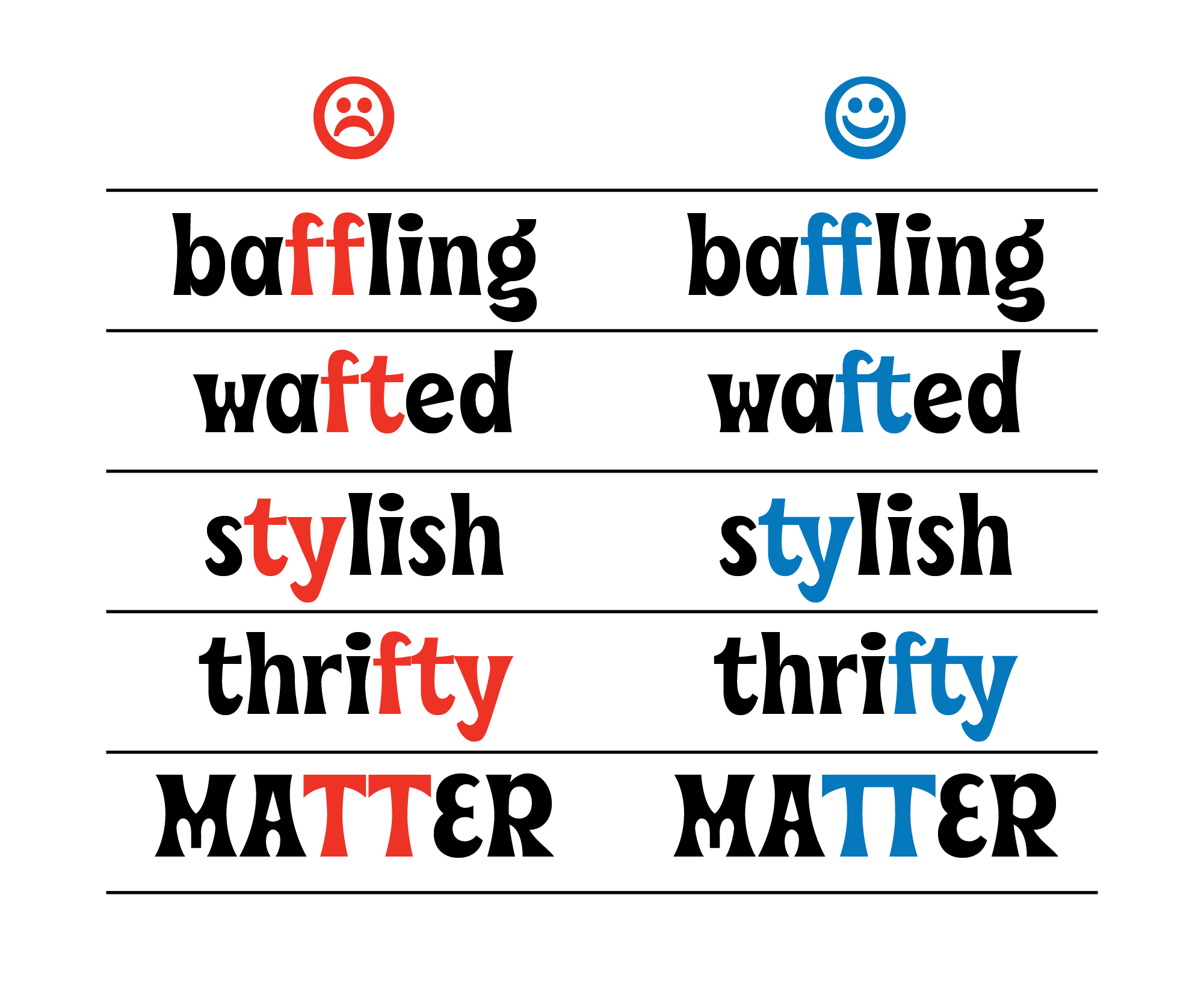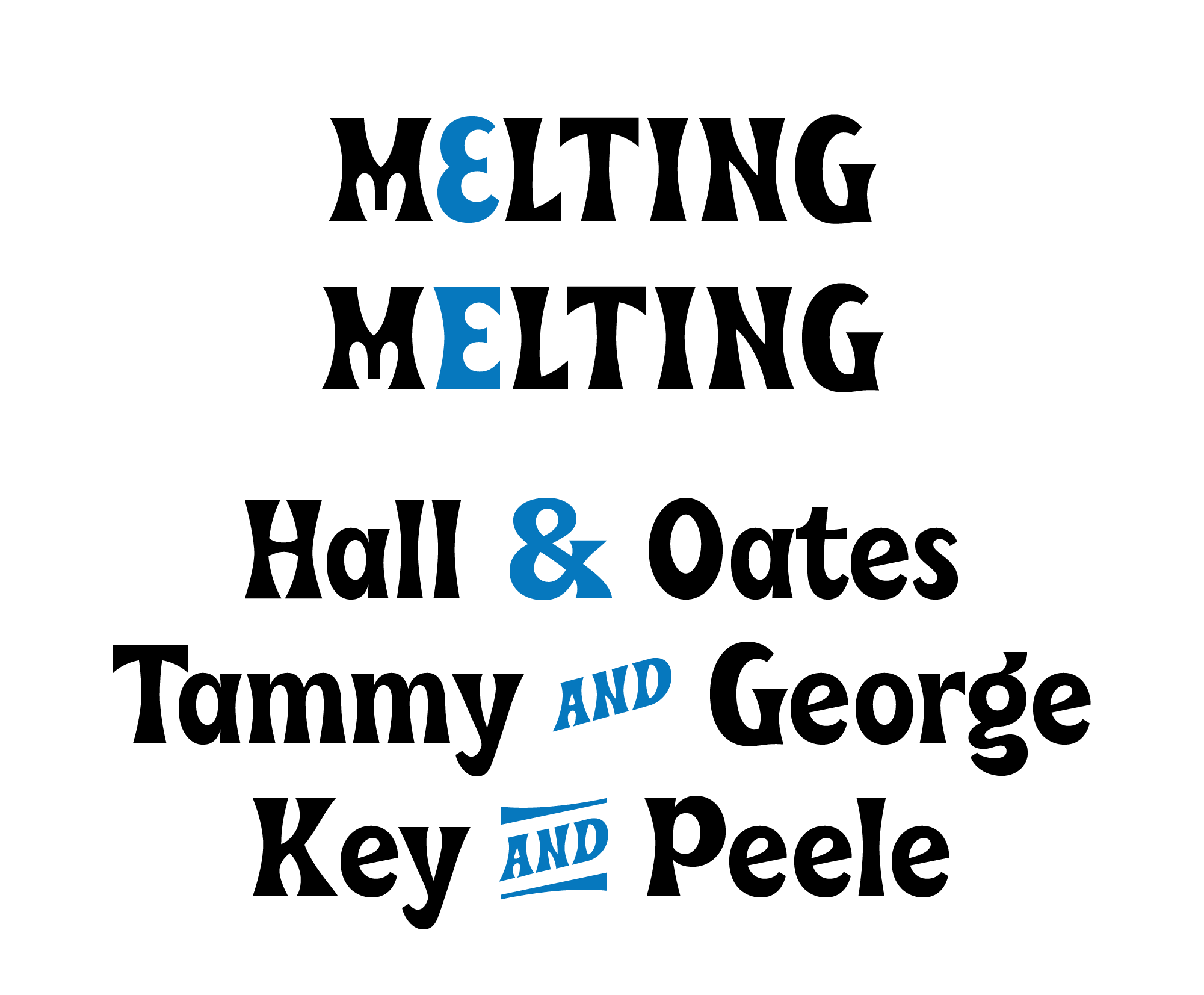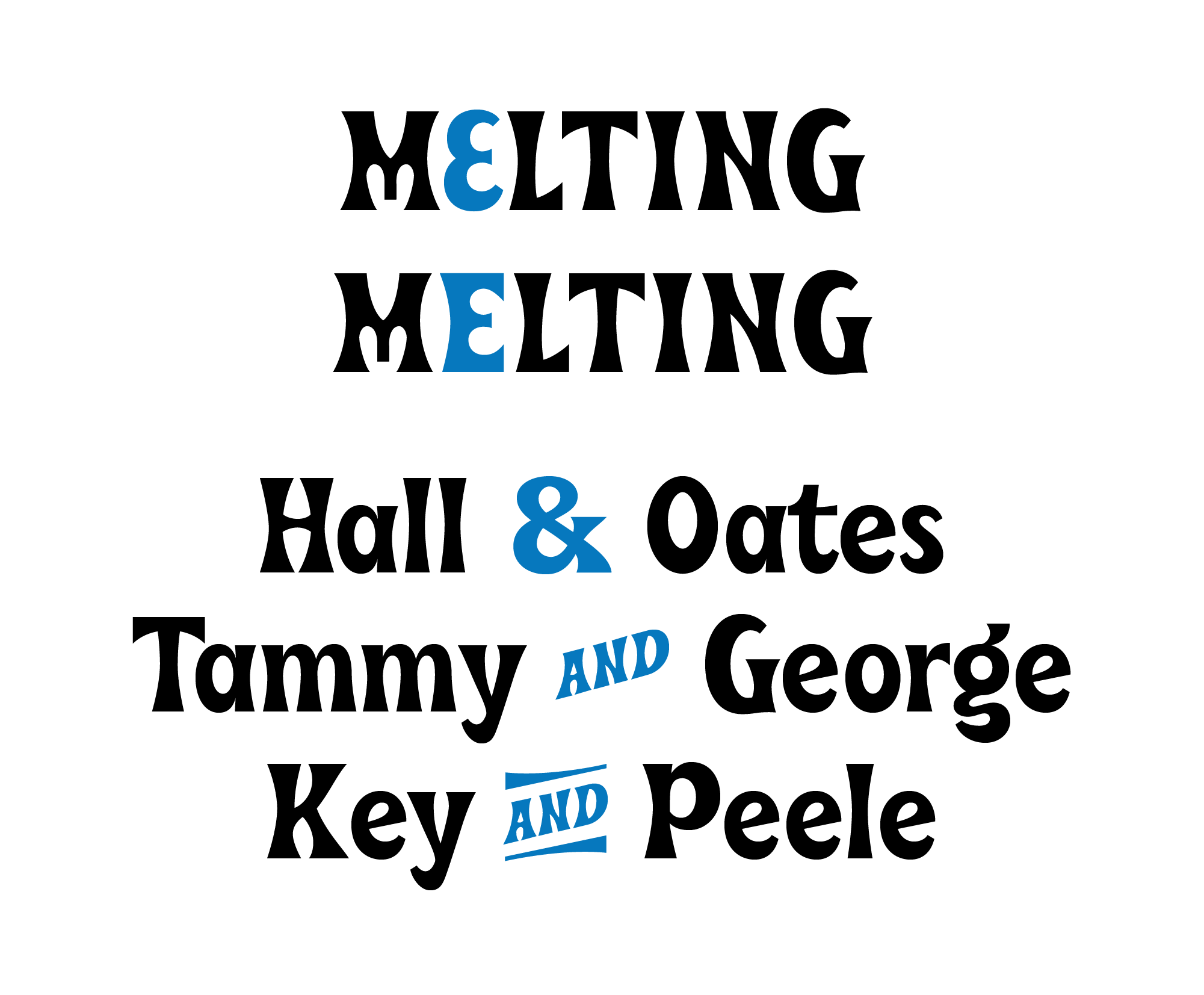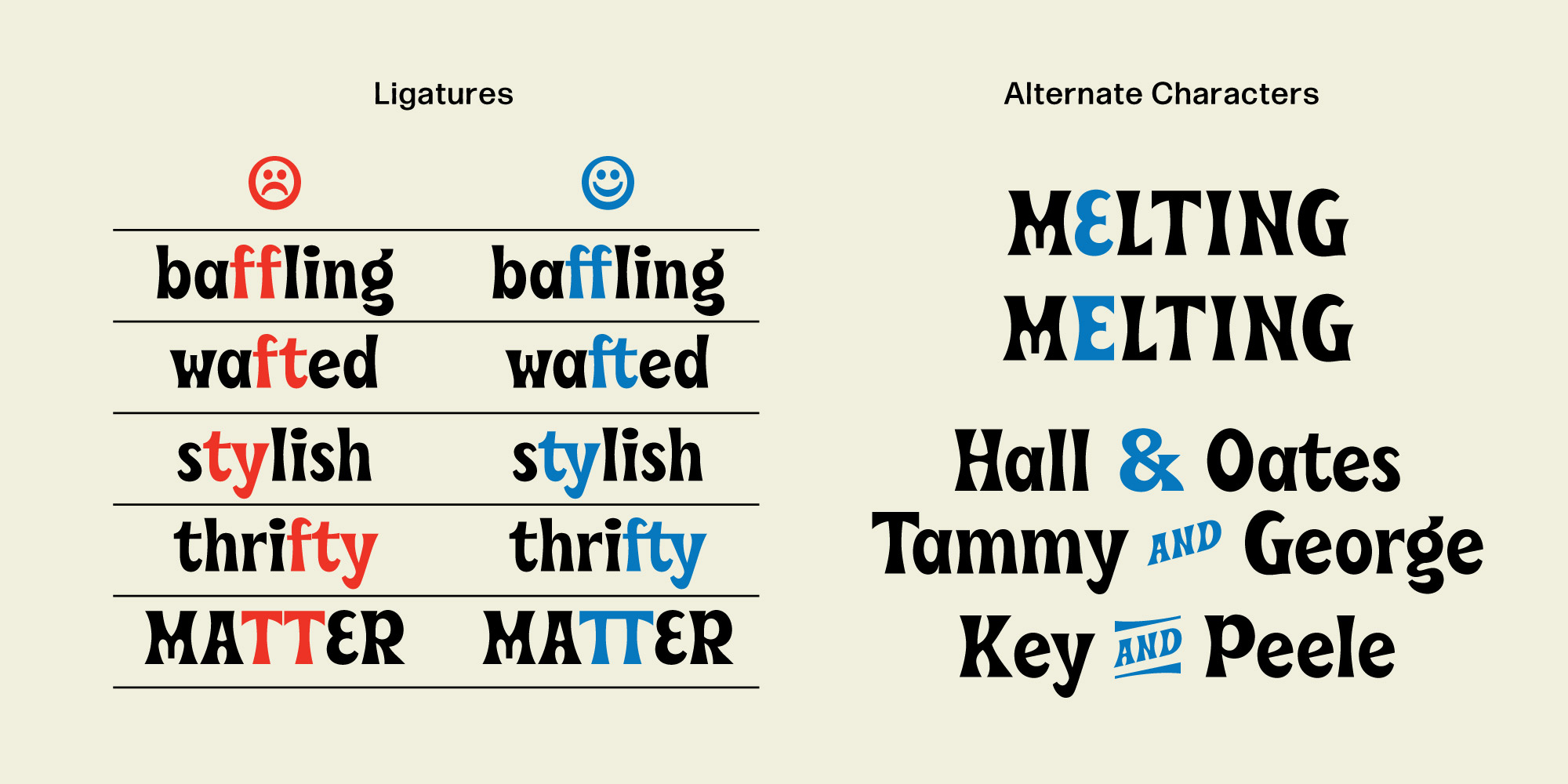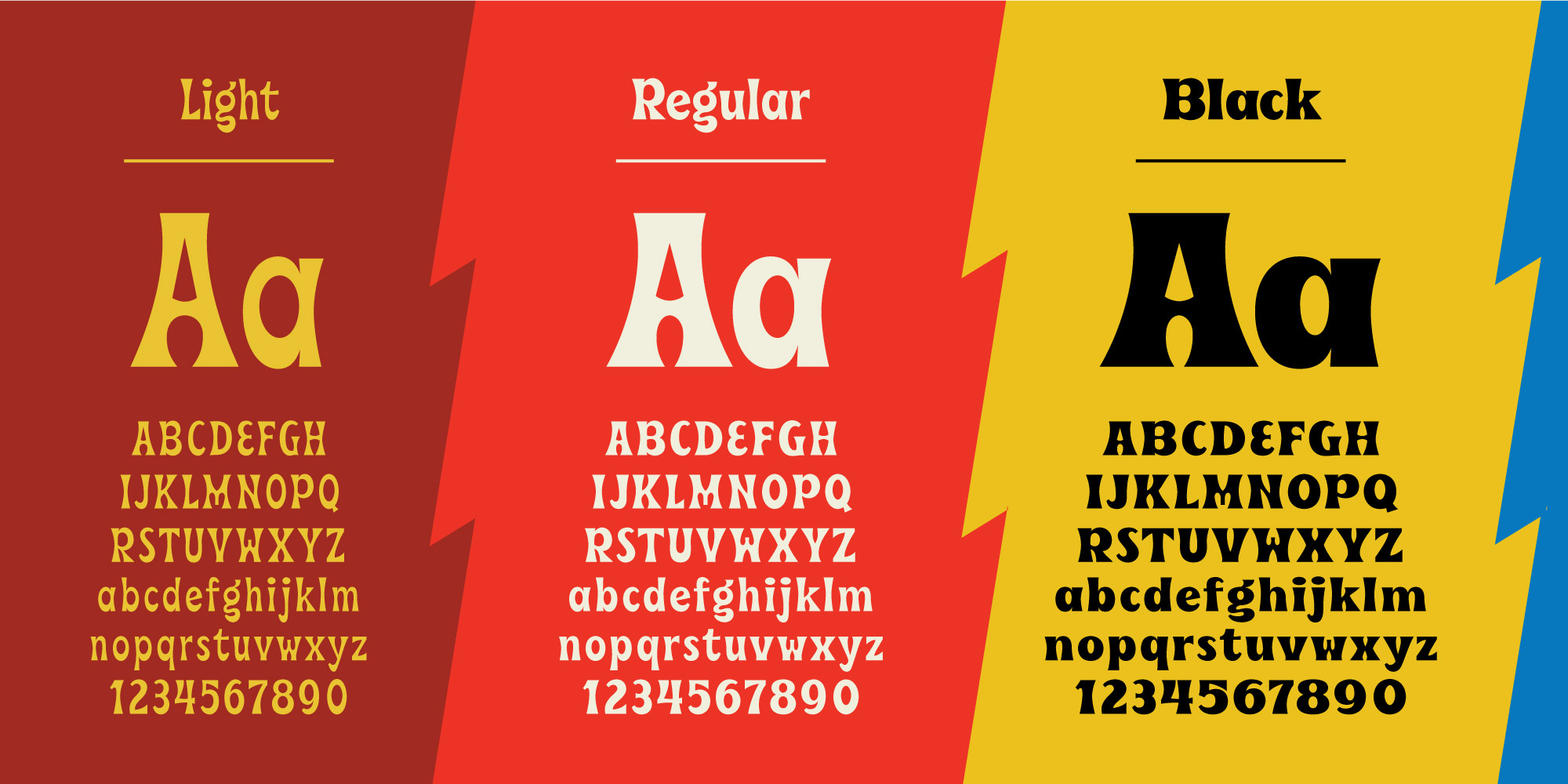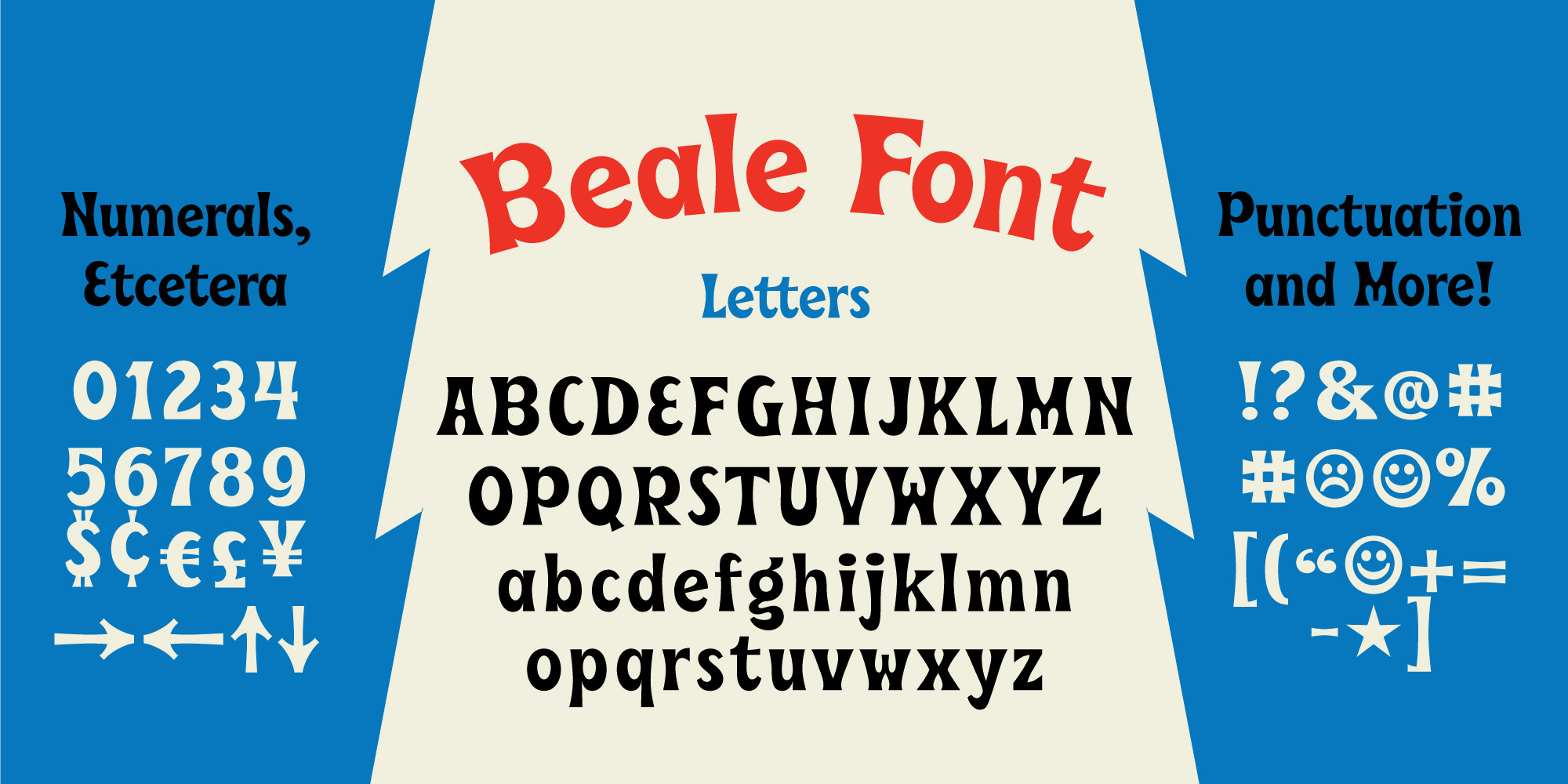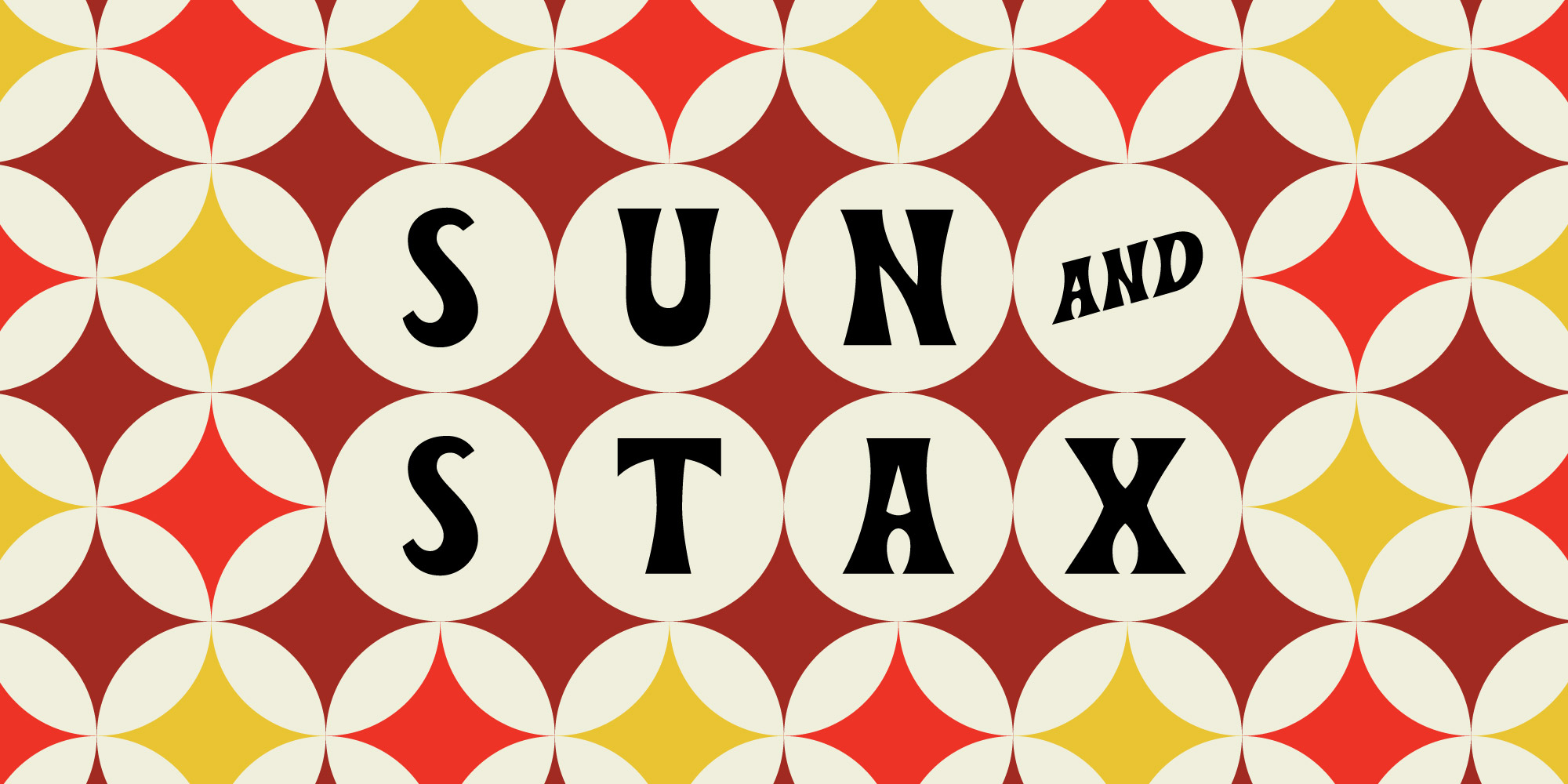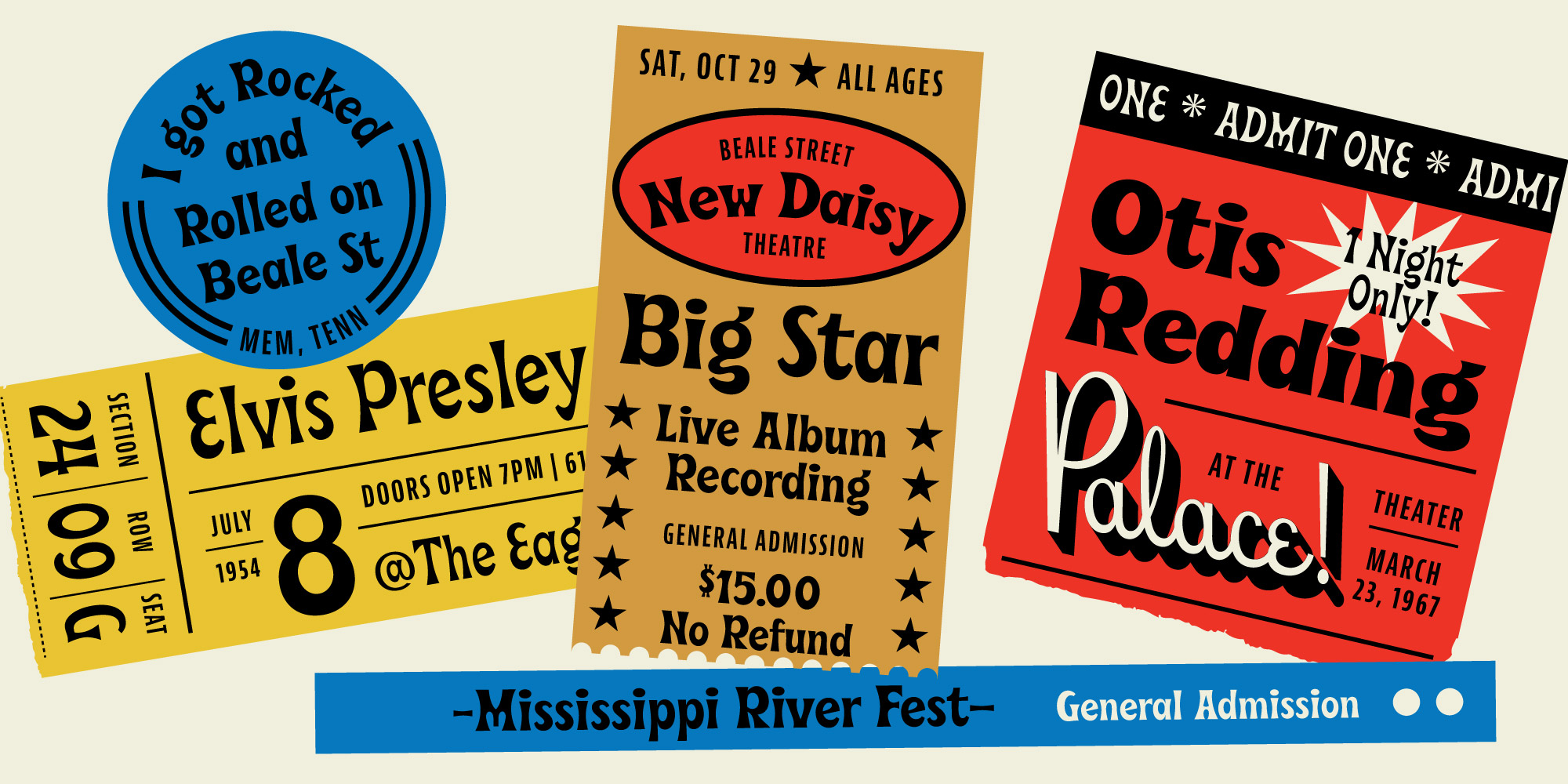
Beale
Beale is a retro display font that started as a custom lettering project to promote a speaking engagement in Memphis with Creative Works. The letterforms were inspired by the amazing lettering on Blues and Rock ‘N’ Roll records from local pillars, Sun Studio and Stax Records. This display font comes with tons of additional fun characters and glyphs.